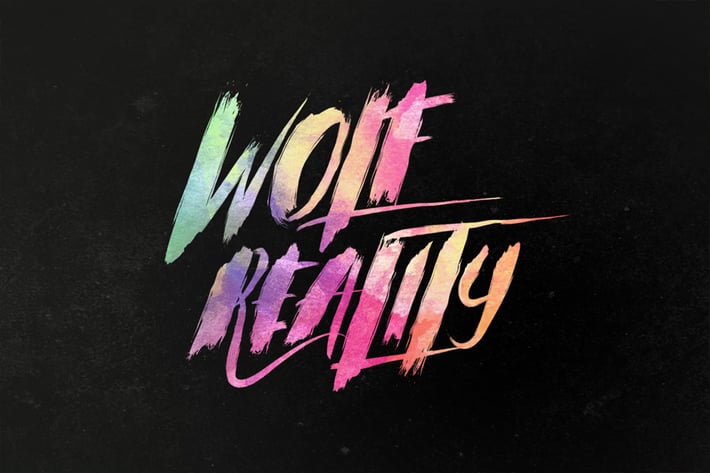
Wolf Reality Typeface
Give your designs an authentic brush handcrafted feel. “Wolf Reality Typeface” is perfectly suited to stationery, logos and much more.